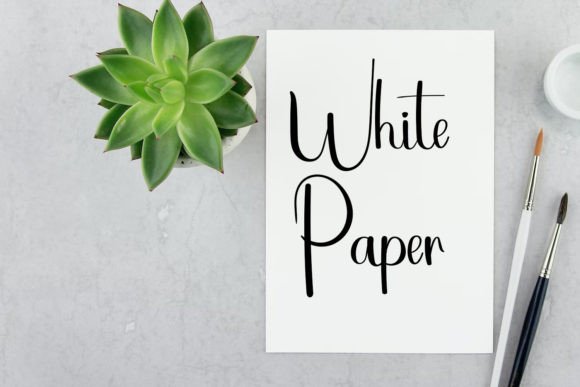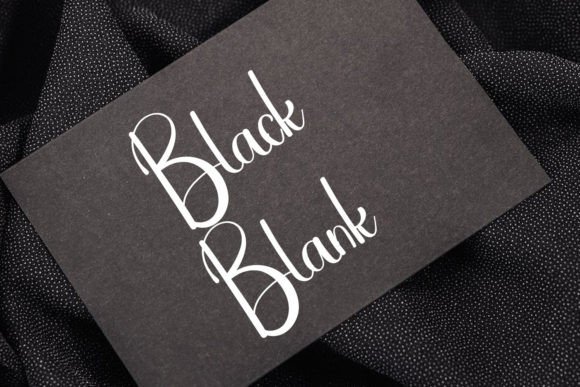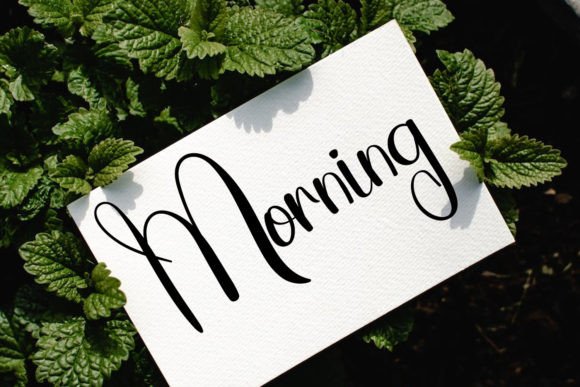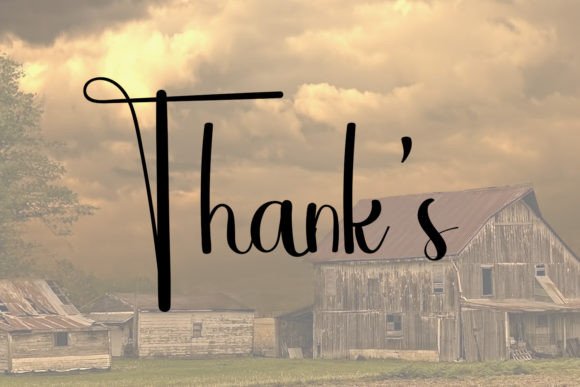
Discover the Charm of Farmhouse Font: Elevate Your Designs with a Fresh and Beautiful Typeface
Are you a designer, crafter, or business owner looking for a font that can add a touch of elegance and simplicity to your projects? Look no further than the Farmhouse Font! This stunning typeface is perfect for a wide range of design purposes, from YouTube banners and cover logo mockups to wedding invitations, ID cards, flyers, and crafts. In this article, we’ll explore the unique features and benefits of Farmhouse Font, and how it can help take your designs to the next level.
Farmhouse Font is a modern, yet rustic typeface that exudes a sense of warmth and coziness. Its fresh and beautiful design makes it an ideal choice for designers and crafters who want to add a personal touch to their projects. The font’s simple and unique style ensures that it stands out from more traditional typefaces, making it perfect for businesses and individuals looking to make a statement.
So, what makes Farmhouse Font so special? Here are just a few of its key features:
- Fresh and Beautiful Design: Farmhouse Font boasts a modern, yet rustic design that’s sure to capture attention.
- Simple and Unique Style: The font’s simple, yet distinctive style makes it perfect for a wide range of design purposes.
- Highly Versatile: Farmhouse Font can be used for everything from YouTube banners and cover logo mockups to wedding invitations, ID cards, flyers, and crafts.
- Easily Readable: The font’s clear and legible design ensures that your message is communicated effectively.
How to Use Farmhouse Font in Your Designs
Farmhouse Font is incredibly easy to use, even if you’re not a seasoned designer. Here are a few ways you can incorporate it into your projects:
- YouTube Banners and Cover Logo Mockups: Add a touch of elegance to your YouTube channel or social media profiles with Farmhouse Font.
- Wedding Invitations: Make your wedding invitations truly special with this beautiful and unique font.
- ID Cards and Flyers: Use Farmhouse Font to create professional-looking ID cards and flyers that stand out.
- Crafts and DIY Projects: Add a personal touch to your crafts and DIY projects with this charming font.
Benefits of Using Farmhouse Font
By using Farmhouse Font in your designs, you can enjoy a range of benefits, including:
- Increased Brand Visibility: Stand out from the competition with a unique and eye-catching font.
- Improved Communication: Ensure that your message is communicated effectively with a clear and legible font.
- Enhanced Creativity: Add a touch of elegance and sophistication to your designs with Farmhouse Font.
- Easy to Use: Farmhouse Font is incredibly easy to use, even for those with limited design experience.
Whether you’re a seasoned designer or just starting out, Farmhouse Font is an excellent choice for any project. Its charm and elegance are sure to impress, and its versatility ensures that it can be used in a wide range of design applications. So go ahead, get creative, and see how Farmhouse Font can help take your designs to the next level!